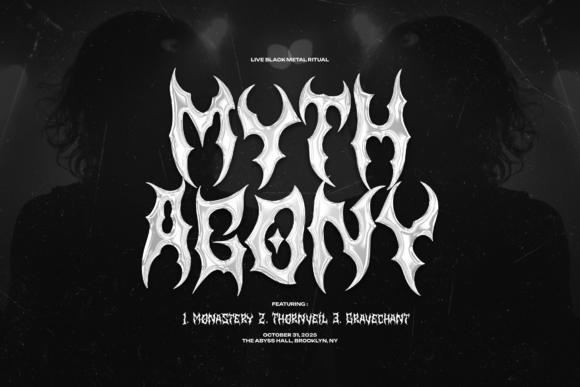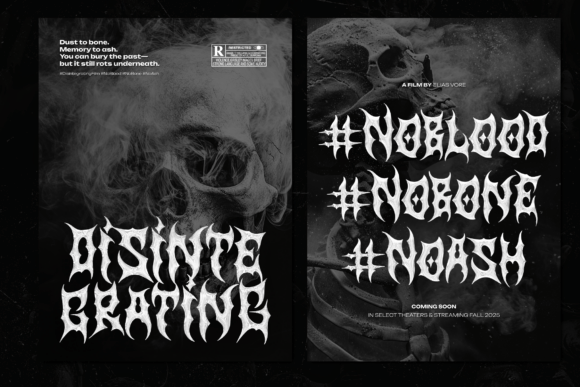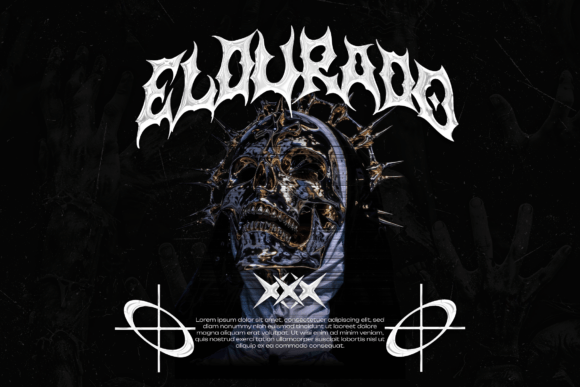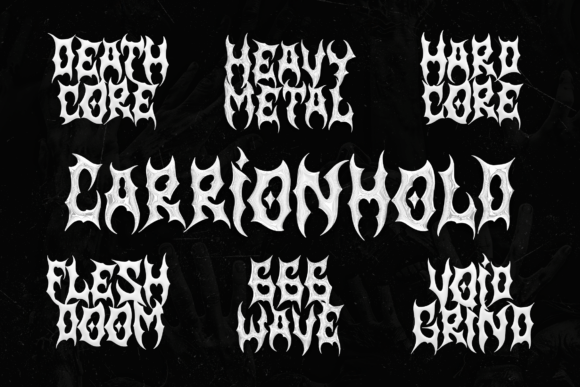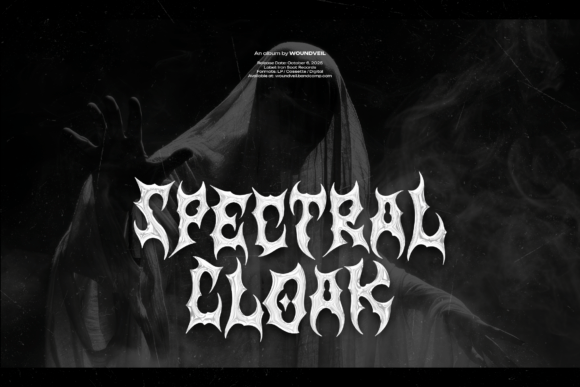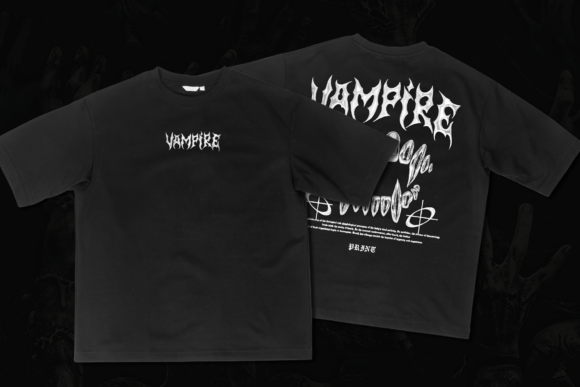
Introduction to Nightmaw Font Font
Fonts play a crucial role in design, and the Nightmaw Font font is a typeface that brings both character and versatility to any project. Whether you’re working on a branding project, a website, or a print design, the Nightmaw Font font offers a unique style that can elevate your work.
Nightmaw is a fierce and sinister black metal display font forged in darkness.
With jagged, blade-like strokes and a molten texture, this font exudes chaos and aggressionโperfect for metal band logos, horror titles, extreme sports branding, and underground zines .
Key Features of Nightmaw Font Font
- โ High-quality typeface designed for professional use
- โ Includes a wide range of glyphs and characters
- โ Ideal for logos, branding, websites, and print
Why Choose Nightmaw Font Font?
The Nightmaw Font font is more than just a typeface โ it’s a design tool that helps you communicate your message with style and clarity. Its unique character set and versatile design make it suitable for a wide range of applications, from elegant invitations to bold headlines.
With its carefully crafted letterforms and balanced proportions, the Nightmaw Font font ensures readability and visual appeal across all mediums.
What makes Nightmaw Font font special?
The Nightmaw Font font stands out with its unique design, exceptional readability, and versatility across various design applications.